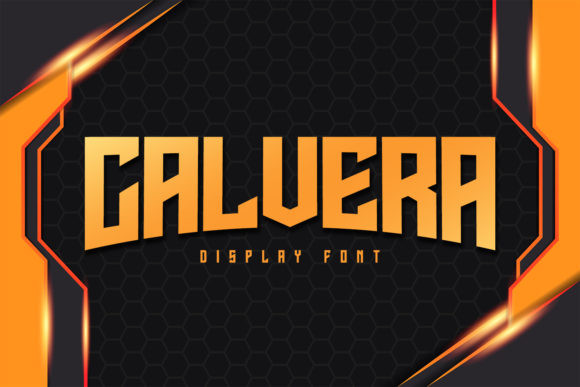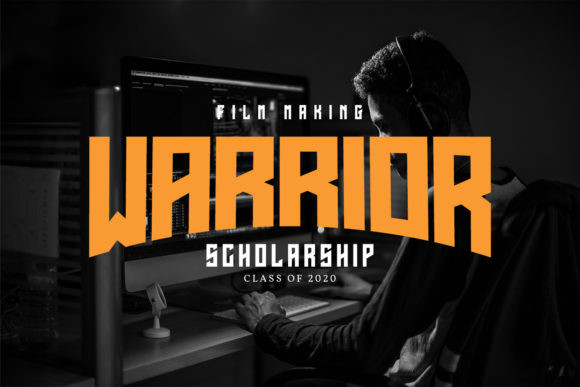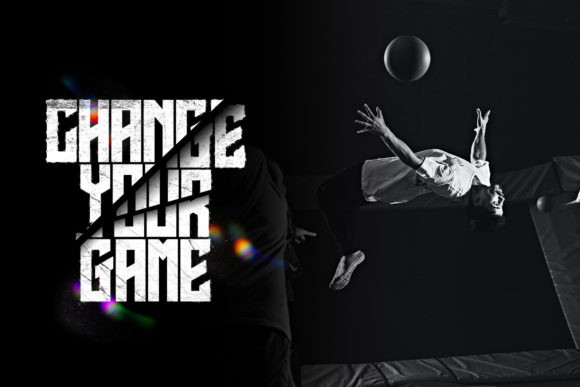
Calvera Font
Calvera is a modern display font. It works best for logos, branding, quotes and more. Every letter has a unique and beautiful touch. Add this font to your creative ideas and notice how it will make them stand out!